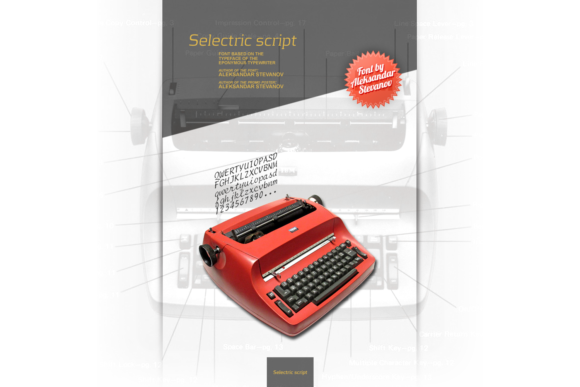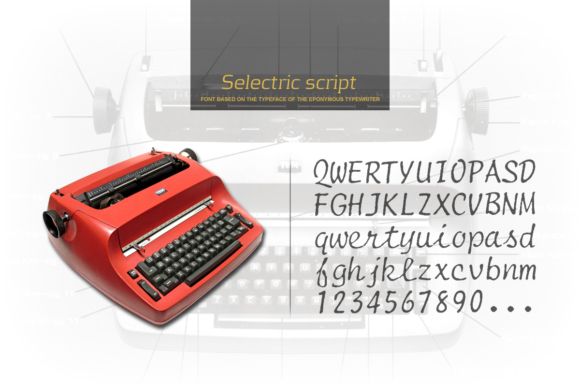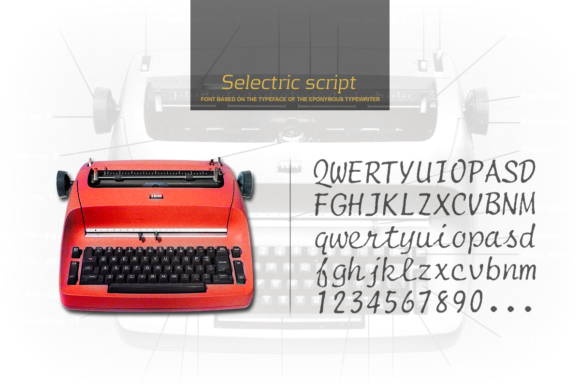
Selectric Script Font
About Selectric Script Font
Selectric Script is a classic font that combines the retro feel of a typewriter typeface and the organic touch of a handwritten text.